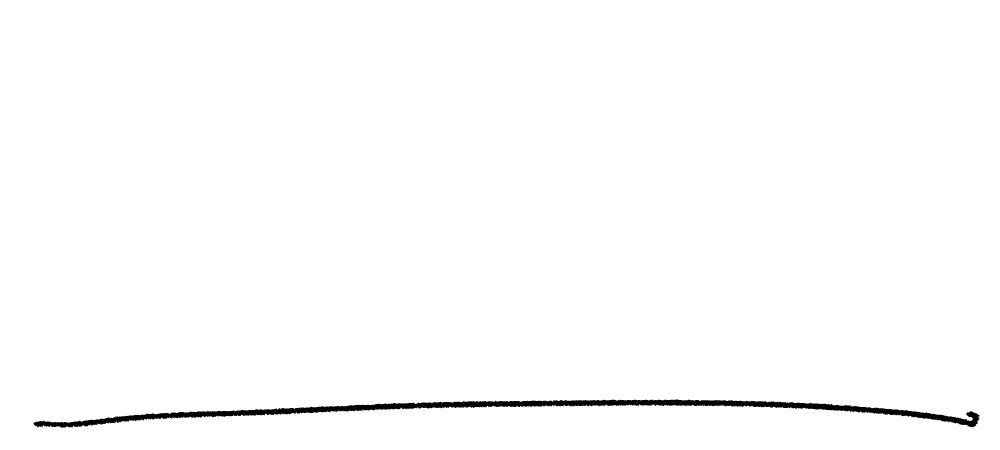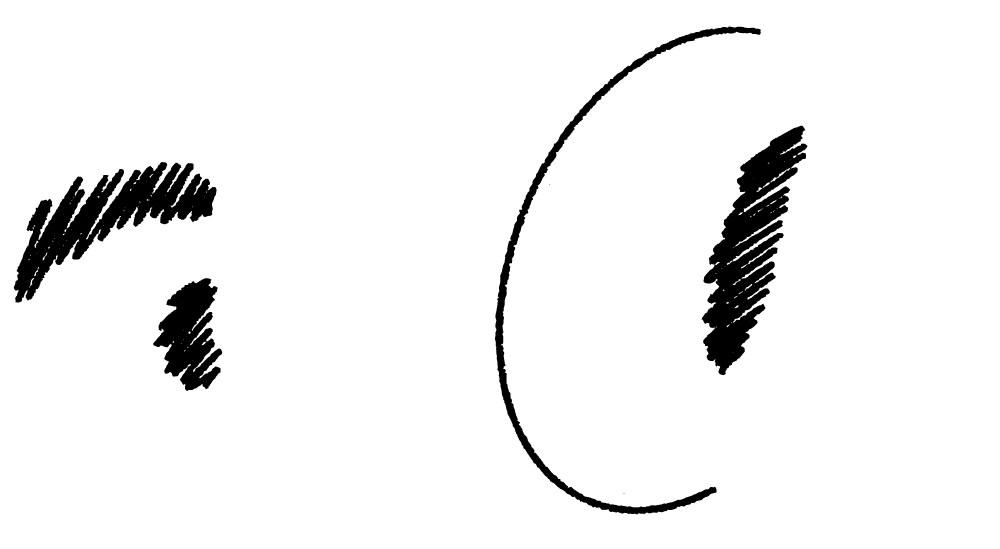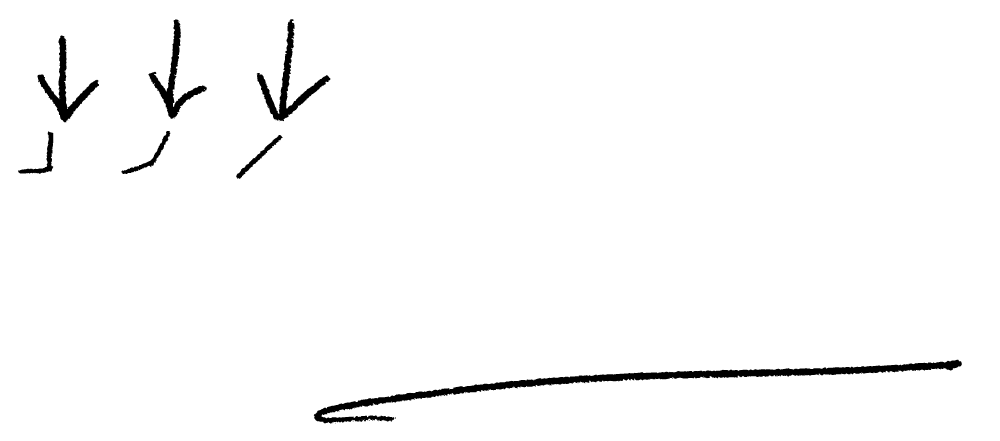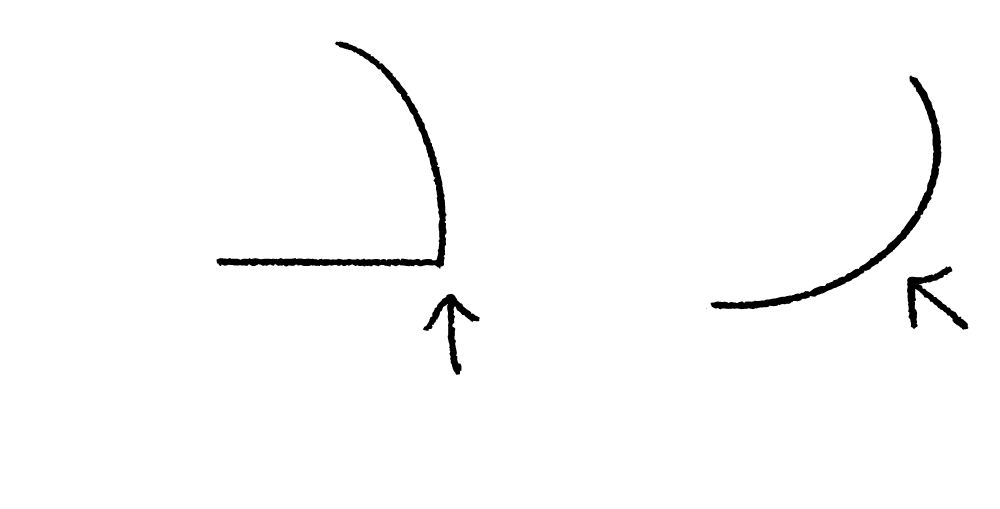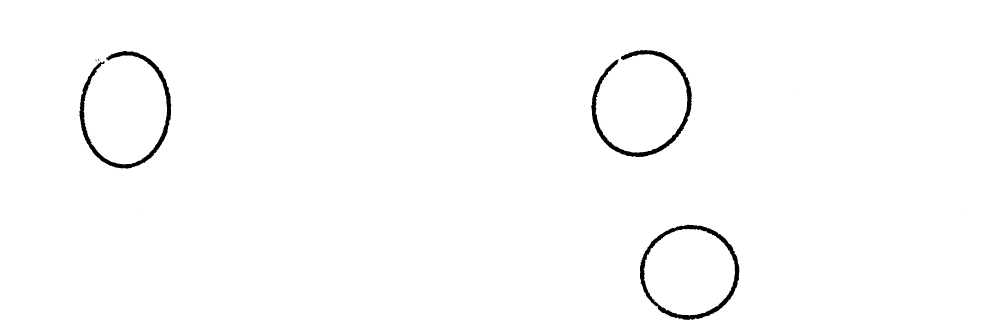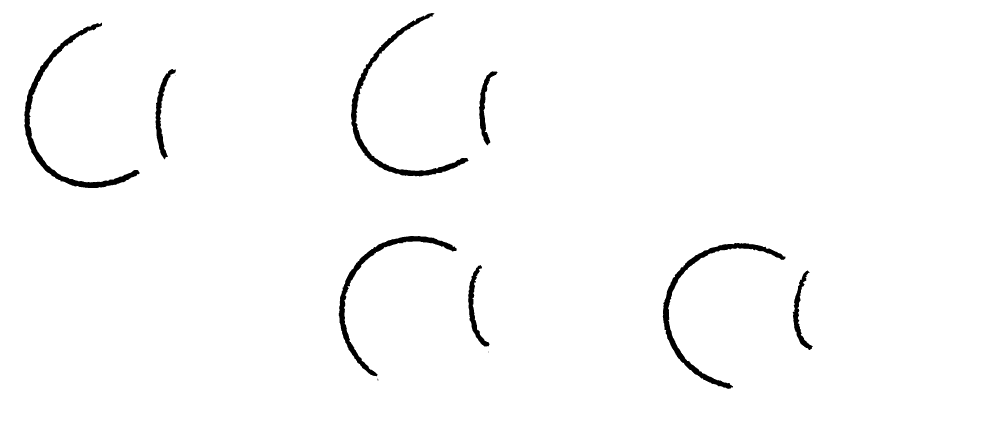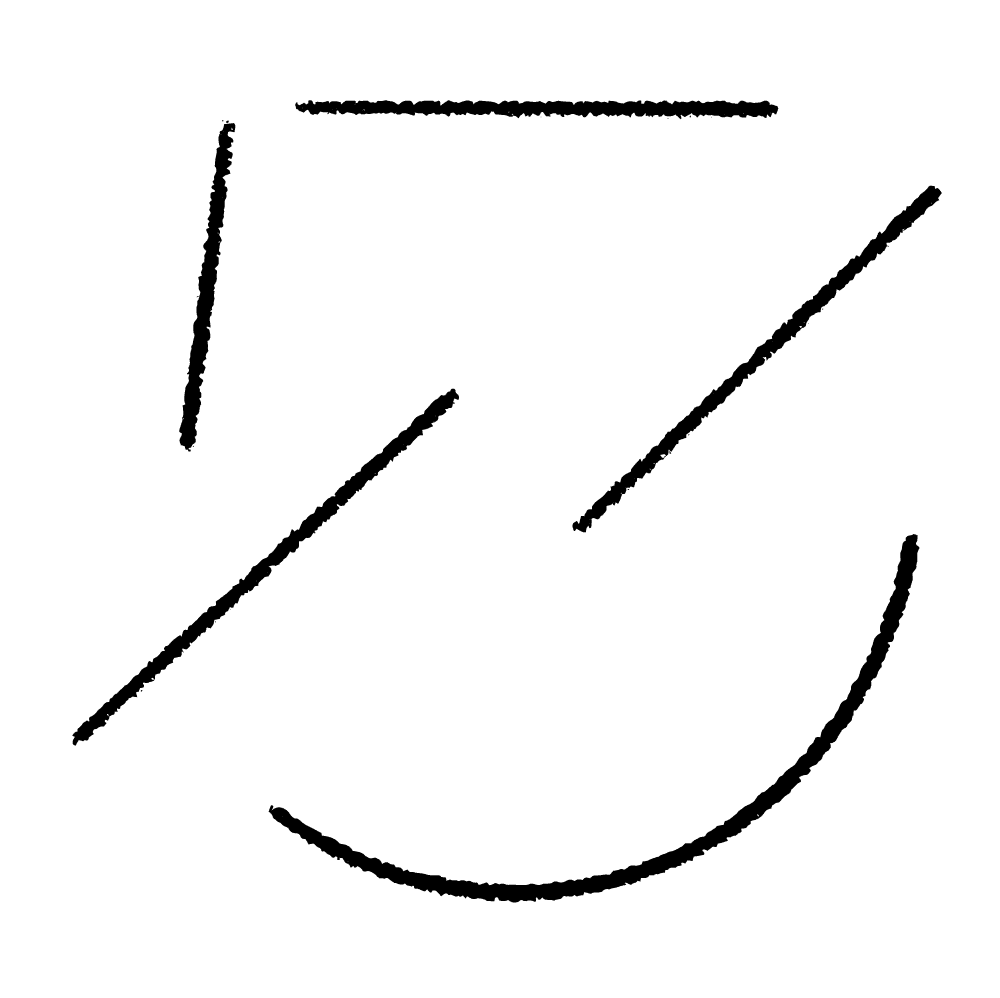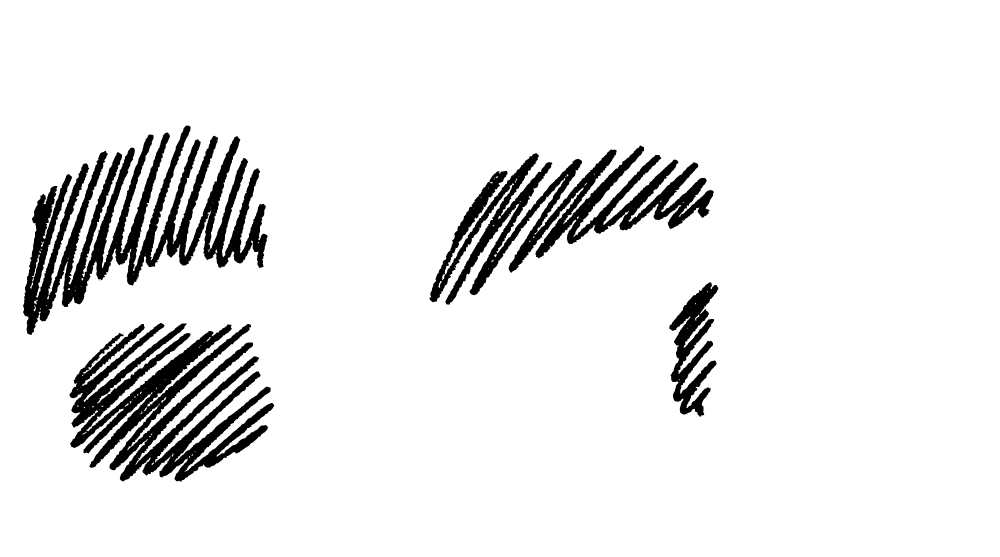
Parclo
Serif
Packed with sleek details and tons of character, Parclo Serif performs like a well-oiled machine. Let the detailing sparkle in Hairline, put it in neutral with Regular for paragraphs, or kick it into overdrive with an Ultra headline.
9 Weights
Matching Italics
18 Total Styles
Companion Sans Typeface
Case Punctuation
Lining & Old Style Figures
Tabular Figures
Math & Currency
Dynamic Fractions
Circled Figures
Directional Arrows
Supports 200+ Languages
Roman & Italic Styles
Oldstyle & Lining Figures
Decorative Quotes
Circled Figures
Directional Arrows
Case Punctuation
Tabular Figures & Math
Ligatures
Dynamic Fractions
Time Colon